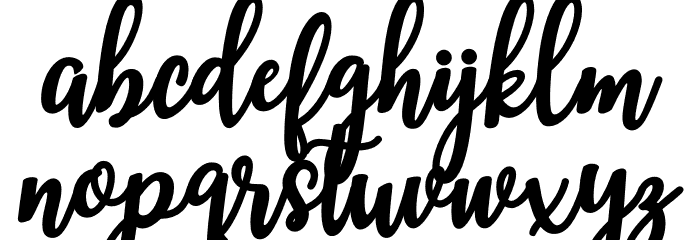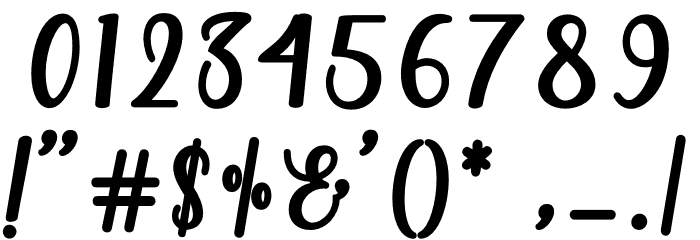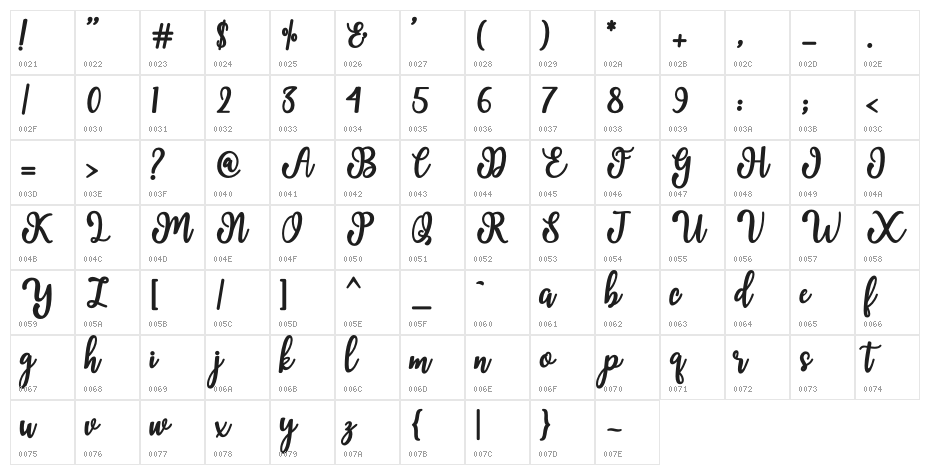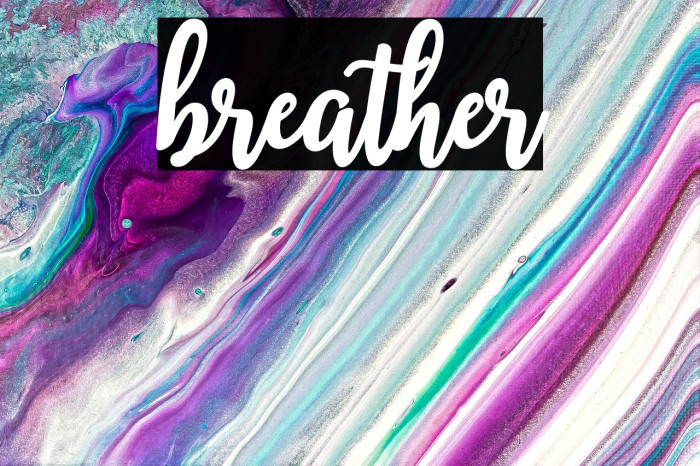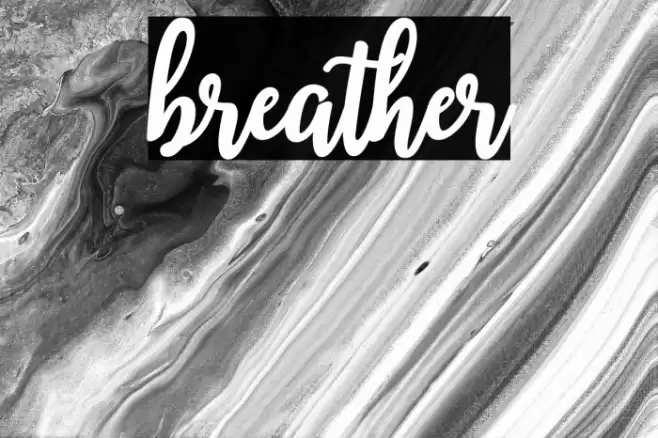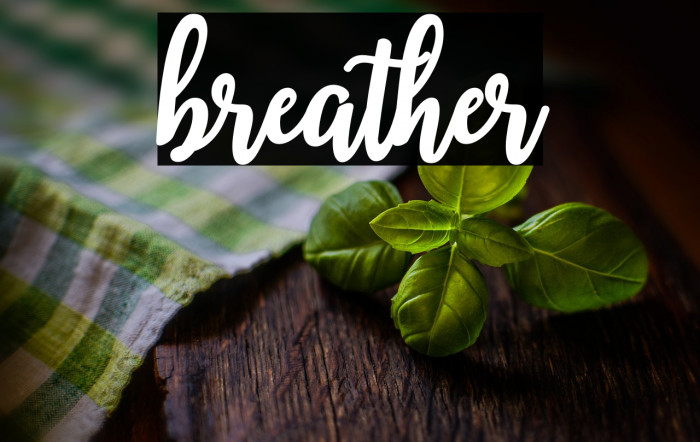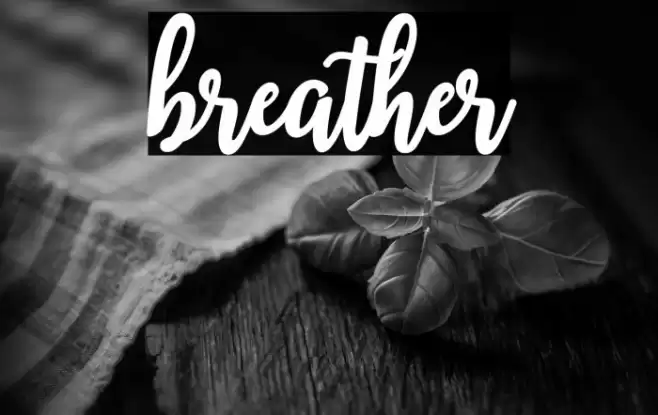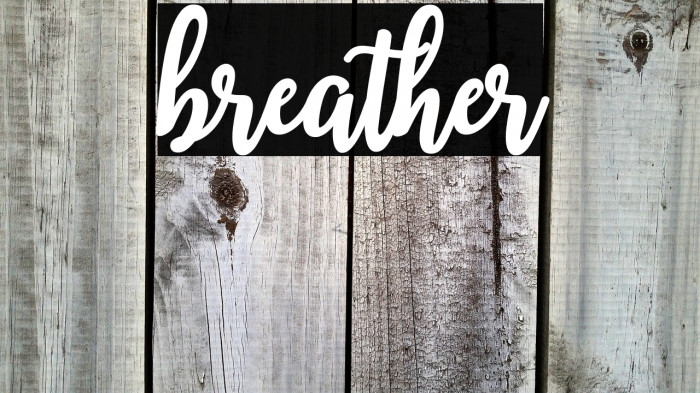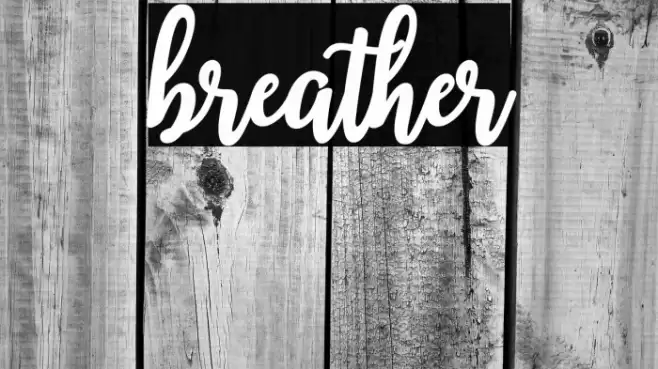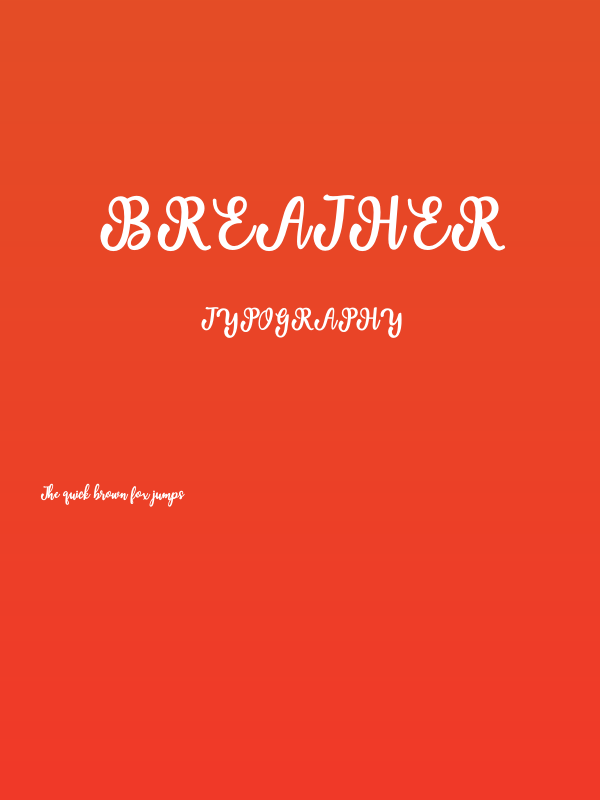
breather Font
This font exhibits a lively and flowing script style, characterized by its cursive, hand-drawn appearance. The uppercase letters are elegantly looped and connected, creating a sense of movement and fluidity. The lowercase letters maintain a consistent style, with smooth curves and a slightly exaggerated slant, enhancing the handwritten feel. The numerals are bold and clear, complementing the overall aesthetic. Special characters are thoughtfully designed to match the script's playful yet sophisticated nature. This font is ideal for projects that require a personal touch, such as invitations, greeting cards, and branding materials.
A lively, flowing script font with a hand-drawn, cursive style.
- Font: breather
- Proposed Projects: Ideal for invitations, greeting cards, branding, and personal projects.
- Category: Script
- Use Case: Logos, Headlines, Invitations